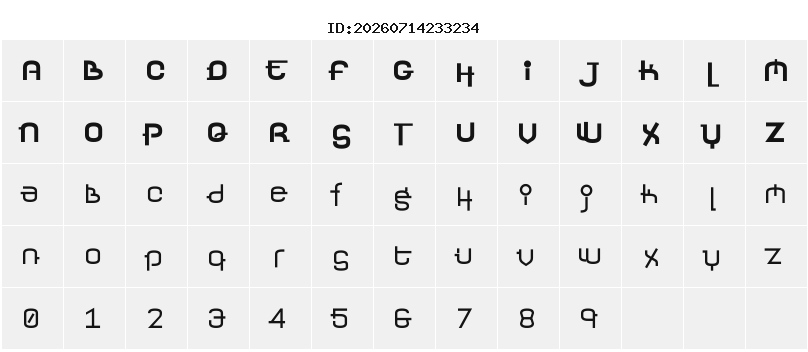
• Font Name: Yerevan
• Designer: Darren Rigby
• Manufacturer: Starving-4 Entertainment
• Description: Based (loosely) on Armenian letterforms
Yerevan.ttf is a modern, elegant sans-serif font designed for ultimate readability and visual harmony. Perfect for branding, headlines, web design, and print materials.